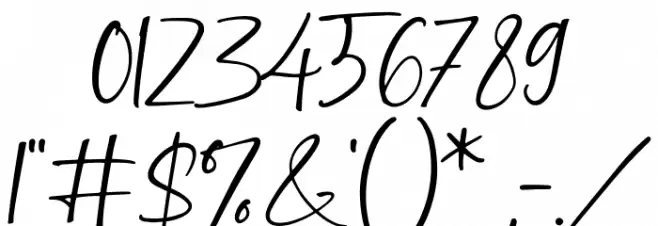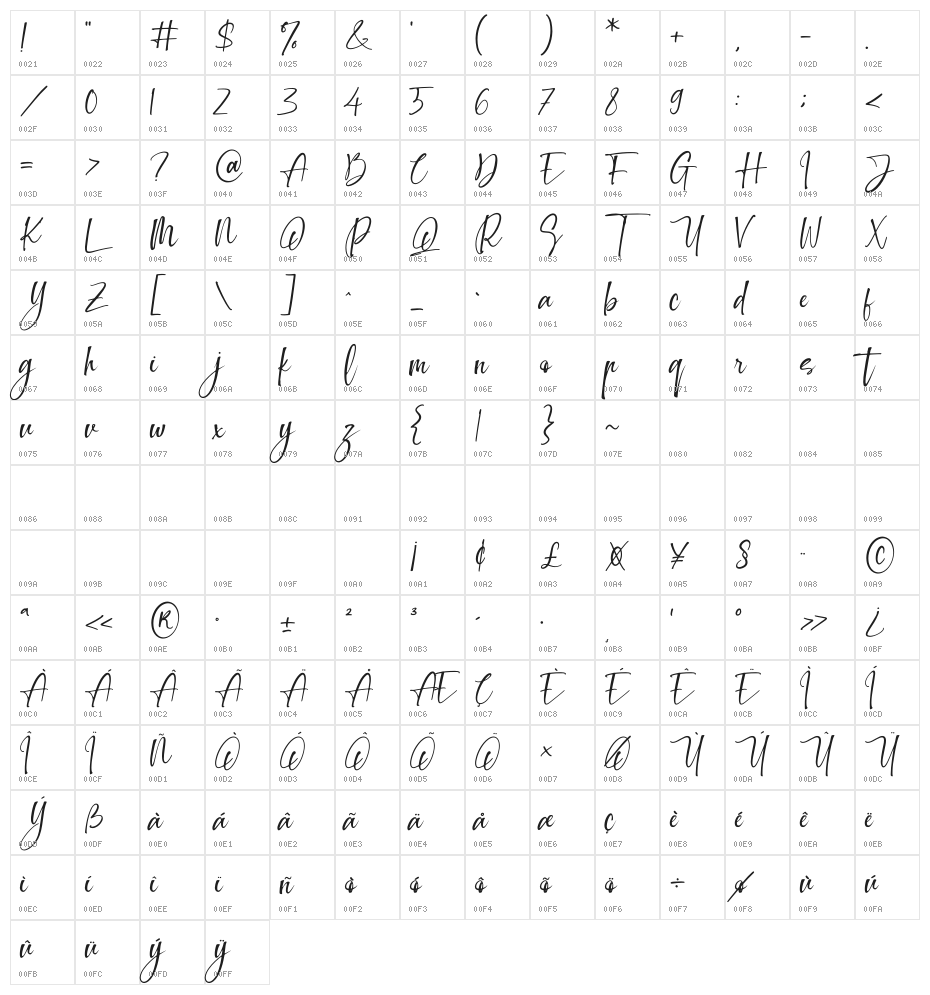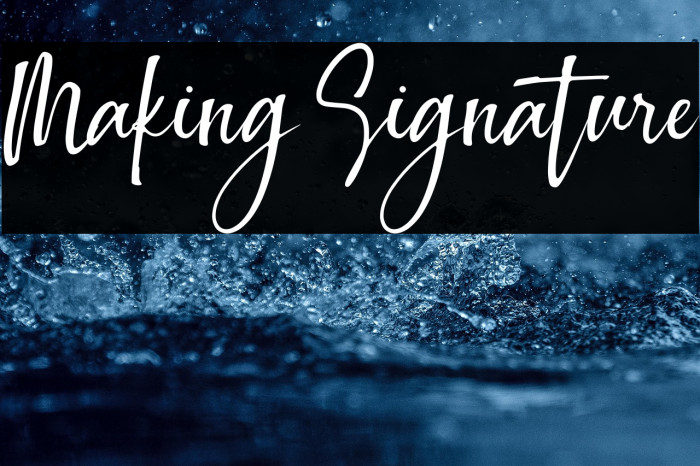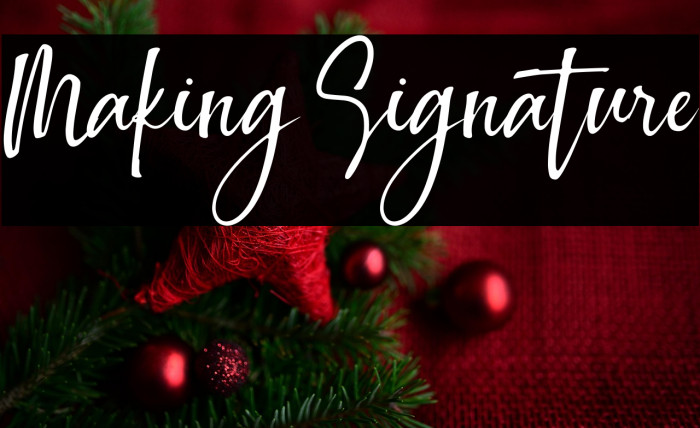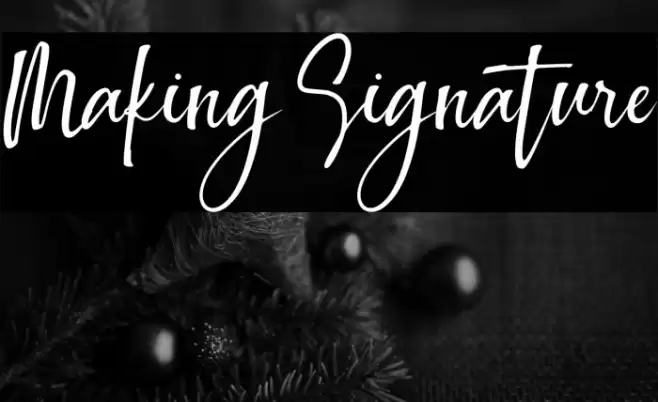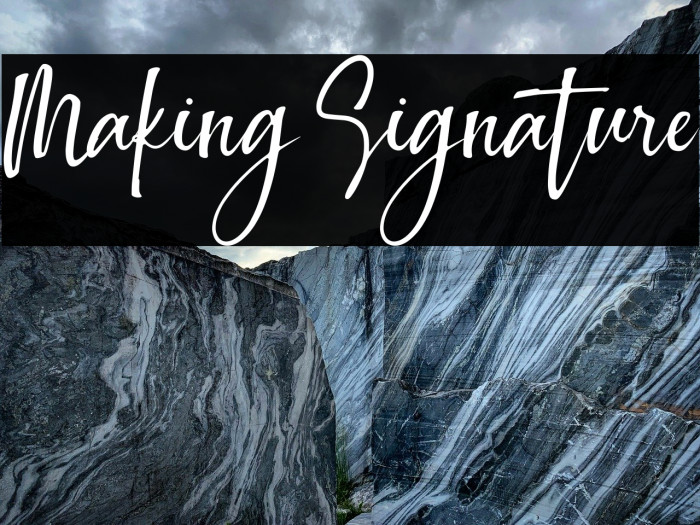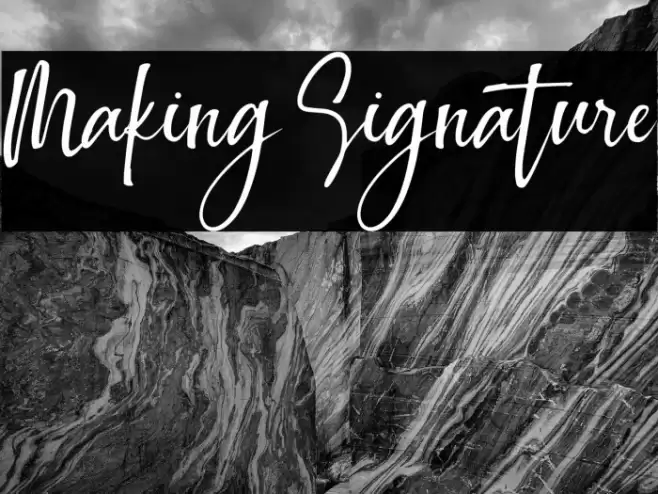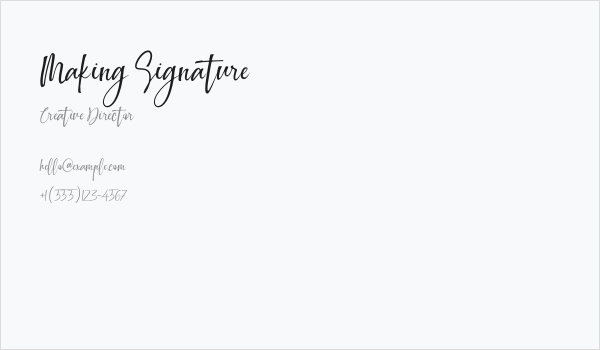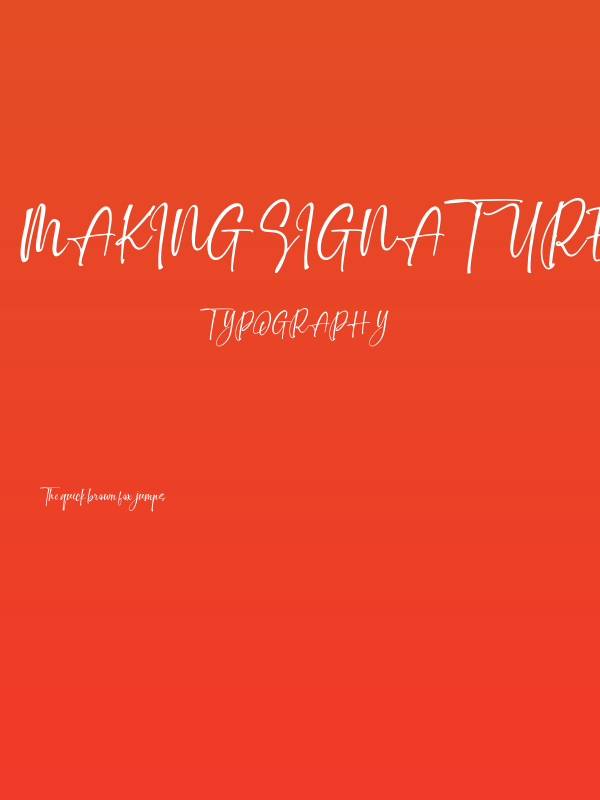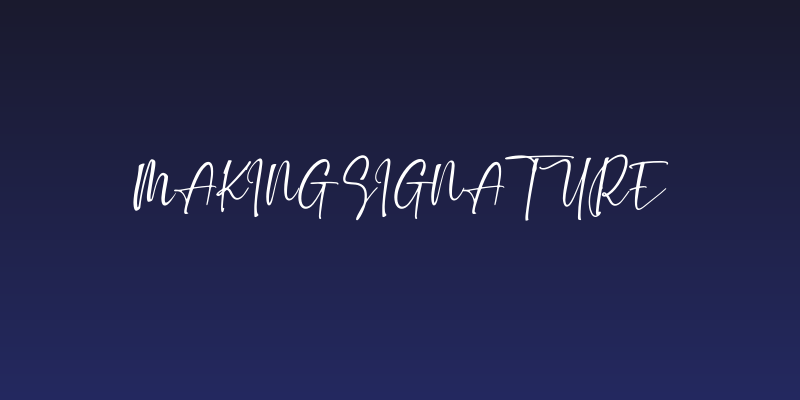
Making Signature Font
Making Signature Description
This font exudes a dynamic and fluid style, reminiscent of a personal signature. The letters are elegantly connected, with a natural flow that suggests a handwritten touch. The uppercase letters are bold and slightly elongated, while the lowercase letters maintain a consistent rhythm, adding to the overall cohesive appearance. The numerals are well-integrated, matching the script's fluidity. Special characters are creatively designed, enhancing the font's versatility. This font is ideal for projects that require a personal, artistic touch, such as invitations, branding, or creative designs.
| Proposed Projects | Ideal for invitations, branding, logos, and creative design projects. |